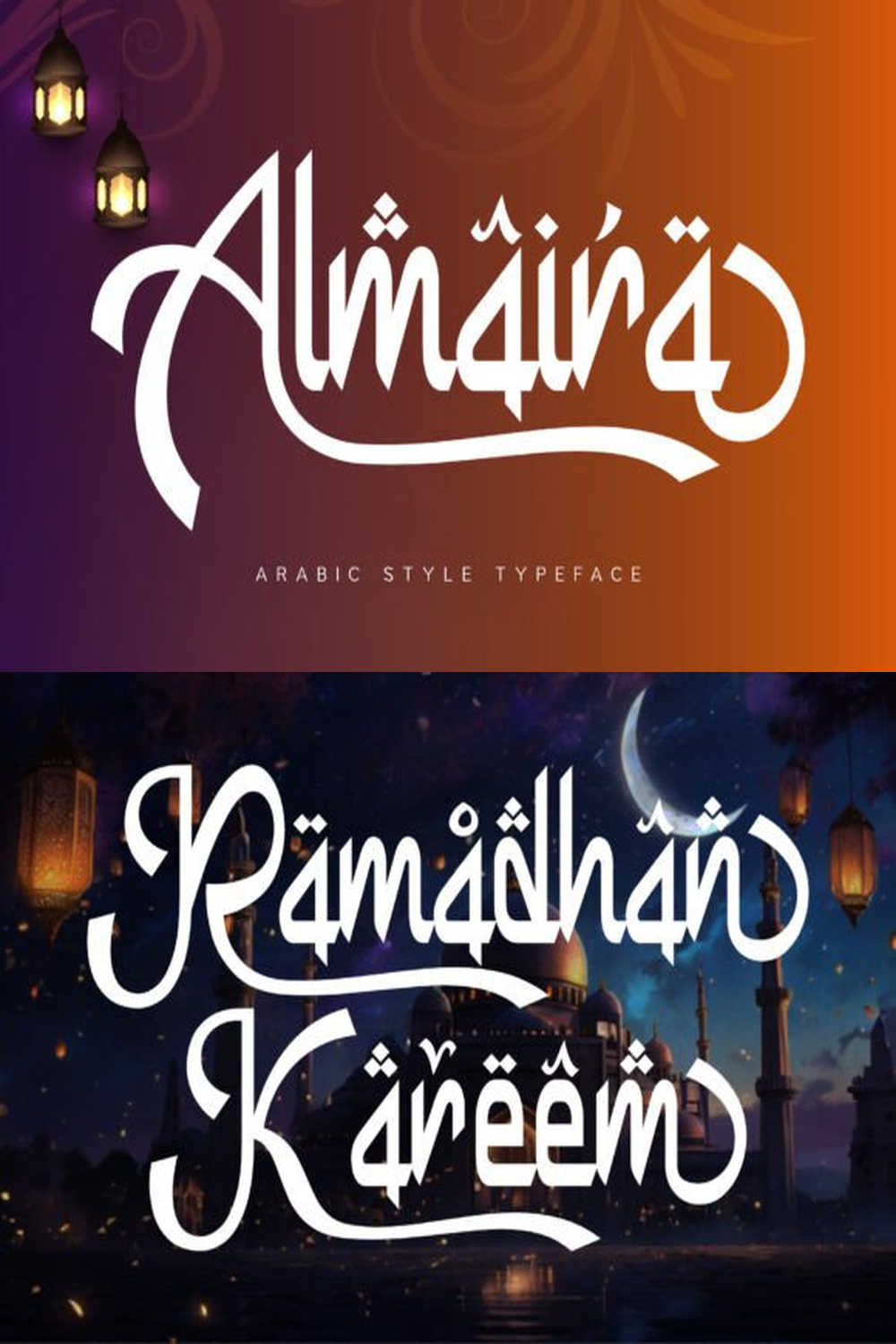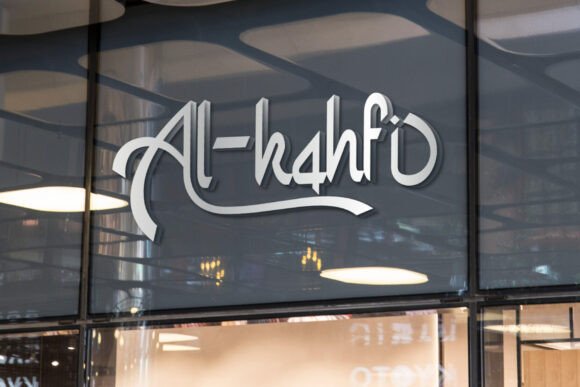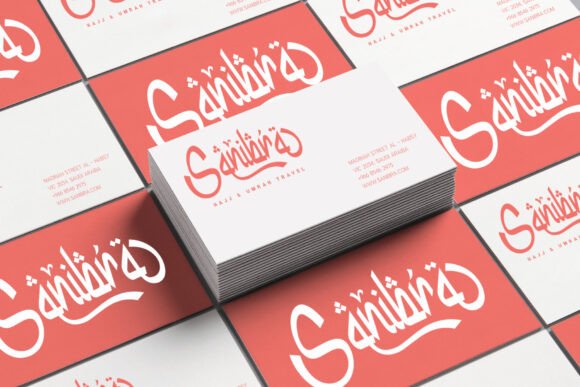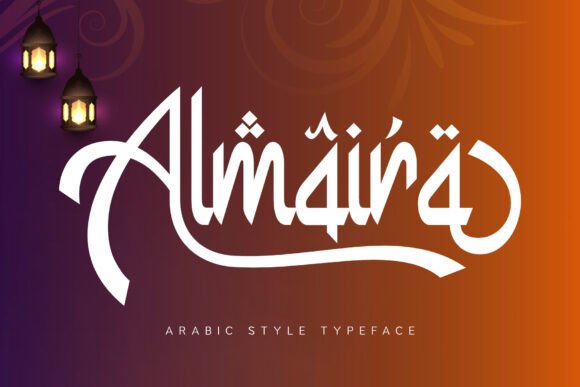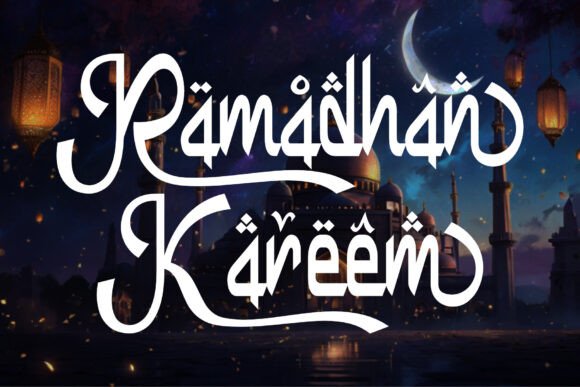
Almaira Font
About the Almaira Font
Experience the unique personality of Almaira Font, a font designed for impact. Introducing “Almaira” – an elegant and bold Arabic script font designed to capture the beauty and essence of Ramadan. With its distinctive letterforms and intricate details, this font embodies the spirituality and sacredness of the holy month. Offering alternate uppercase and lowercase characters, “Almaira” provides versatility and authenticity for Ramadan-themed designs. Perfect for invitations, posters, or social media content, this font adds a touch of aesthetics and reverence to your projects, ensuring they reflect the true spirit of Ramadan.